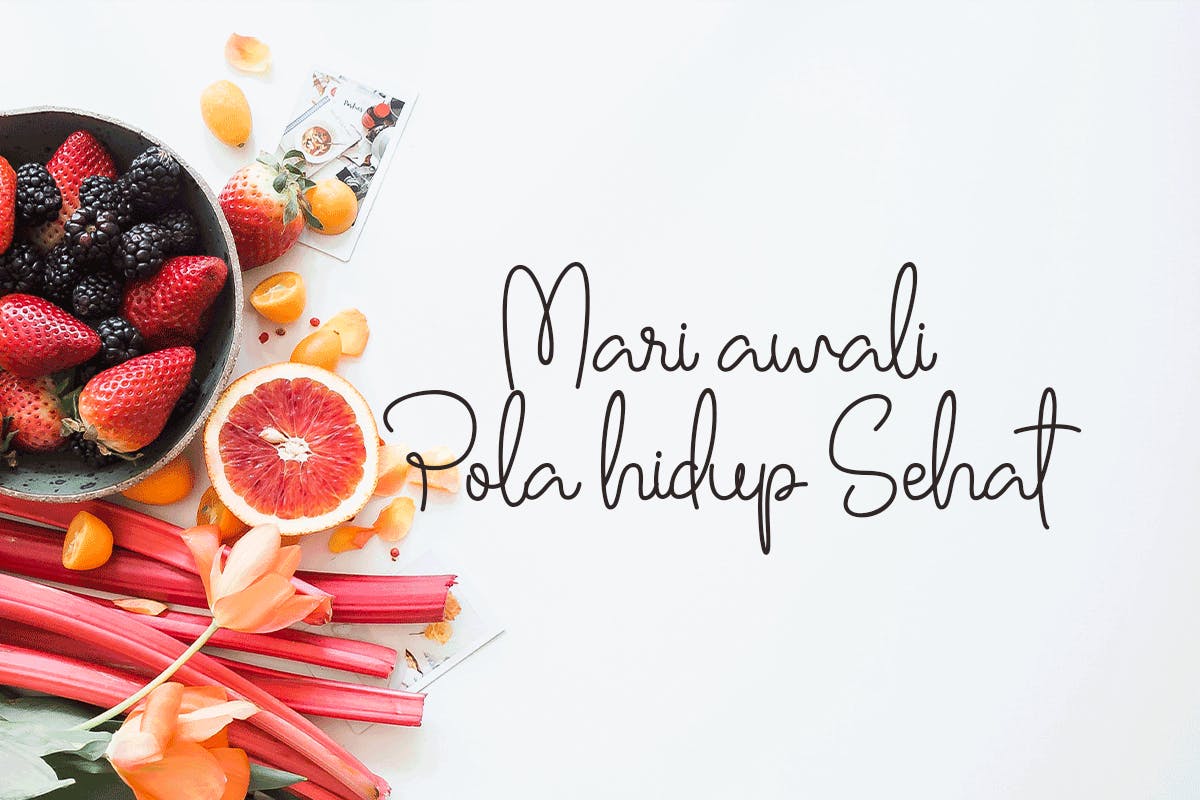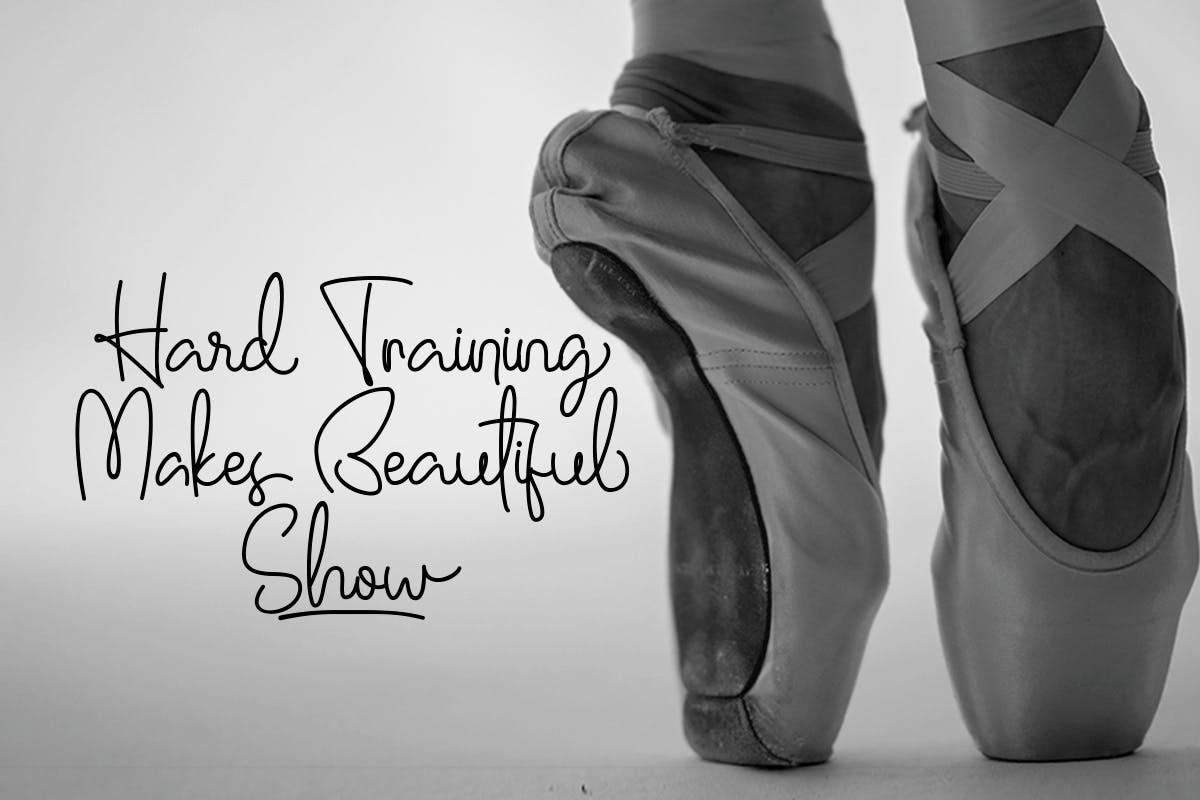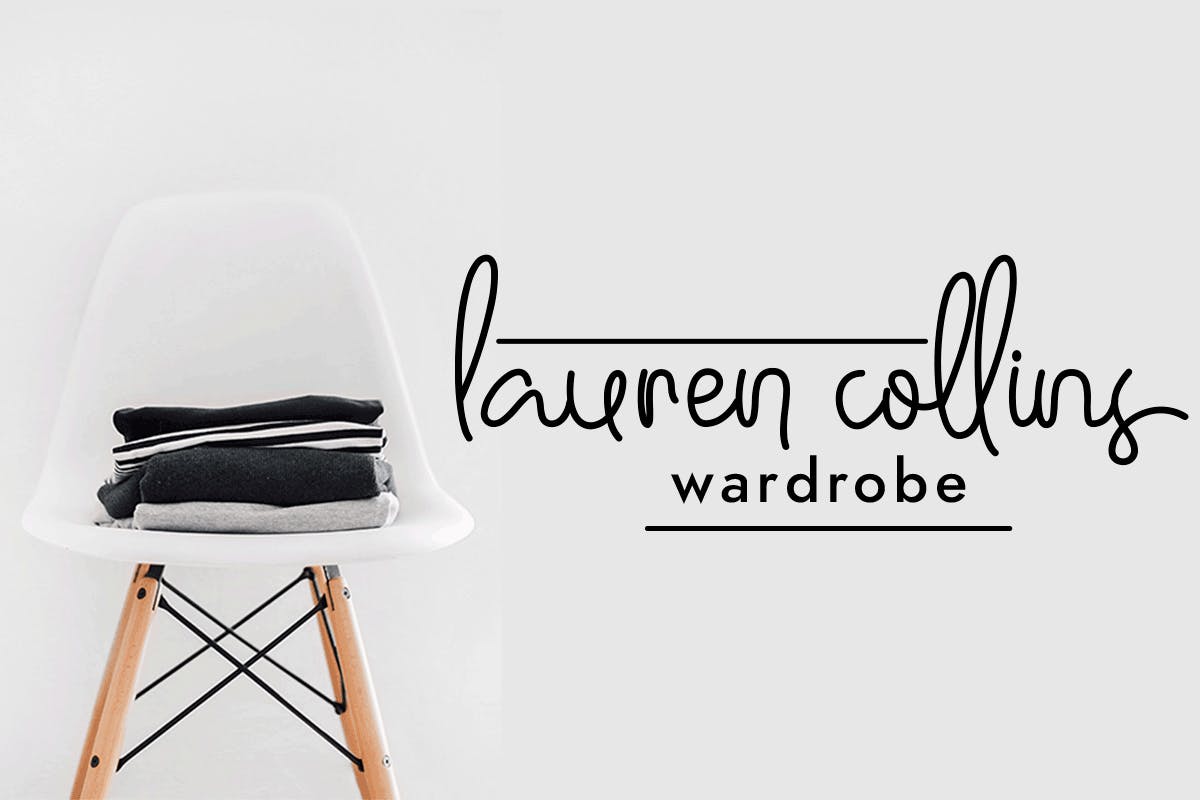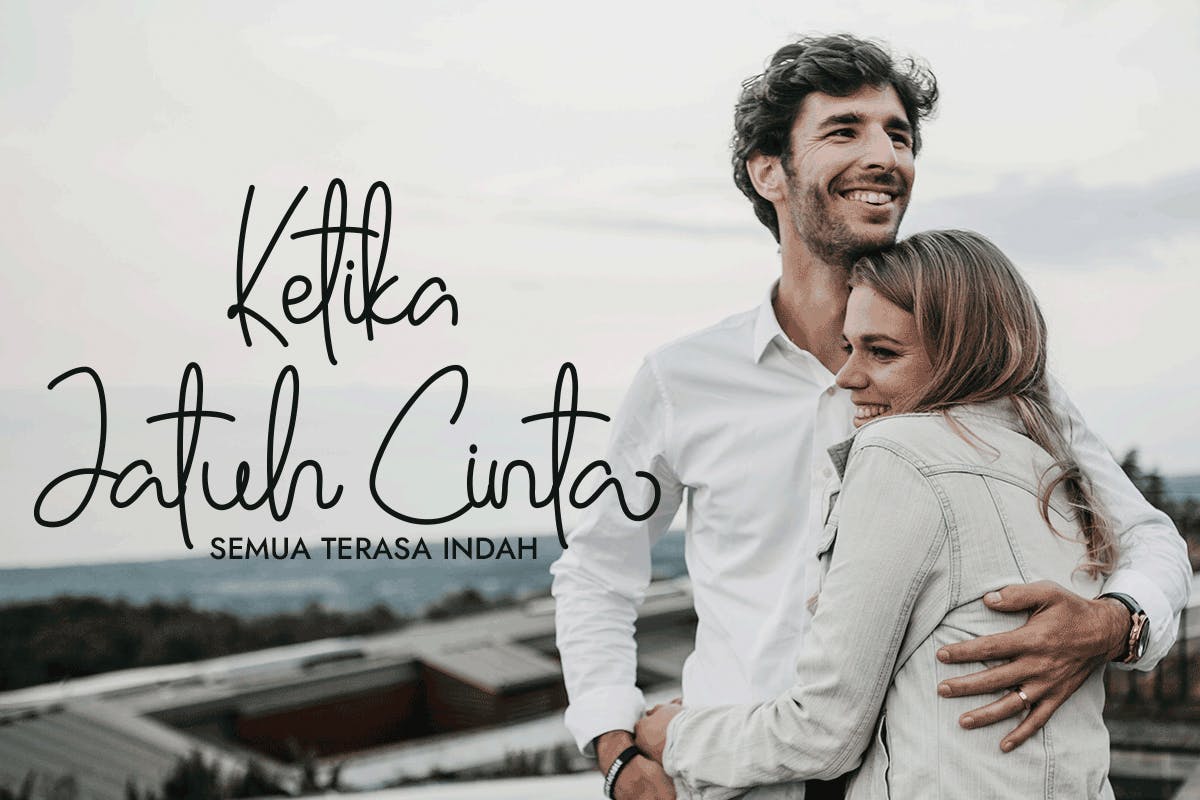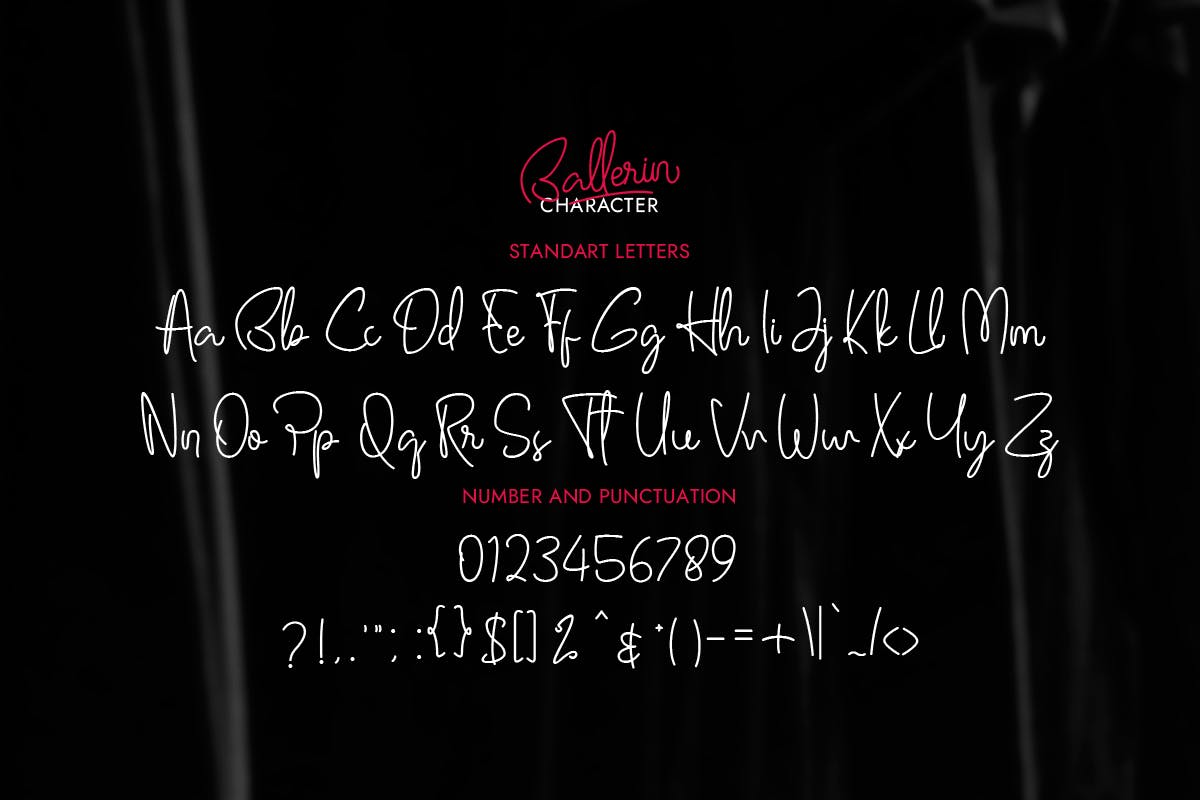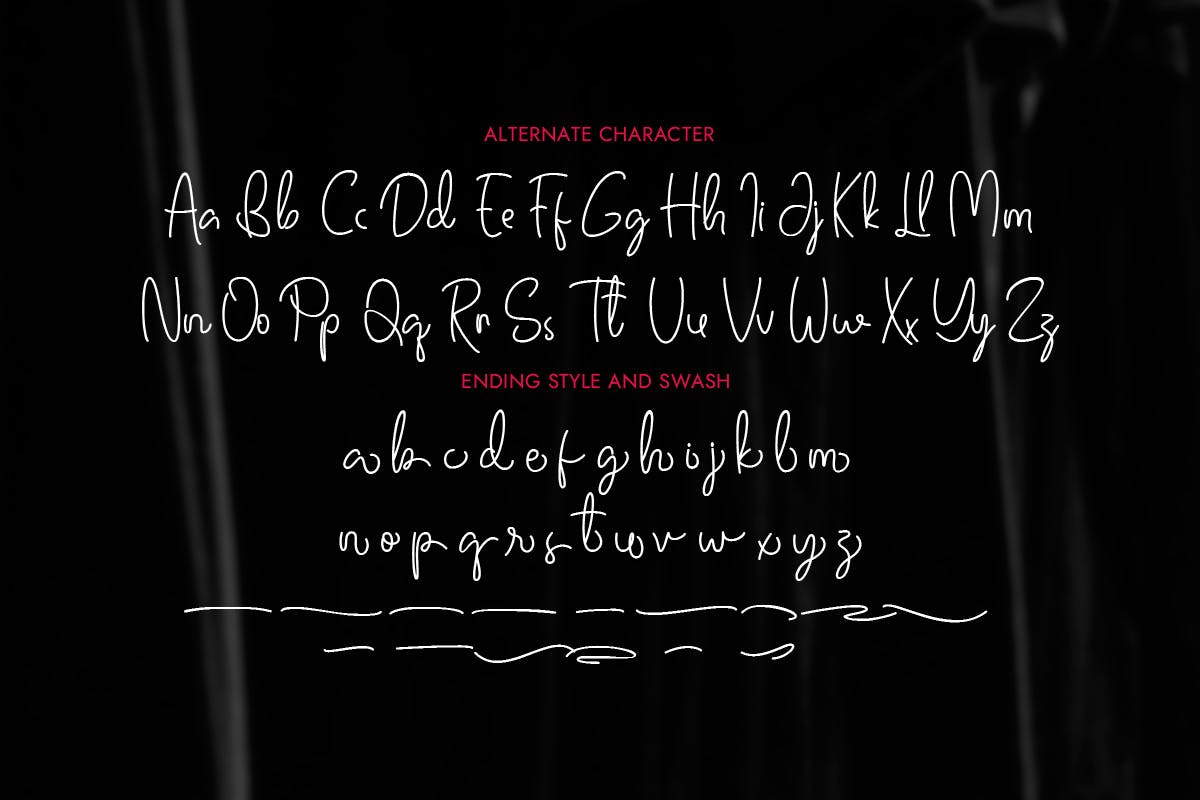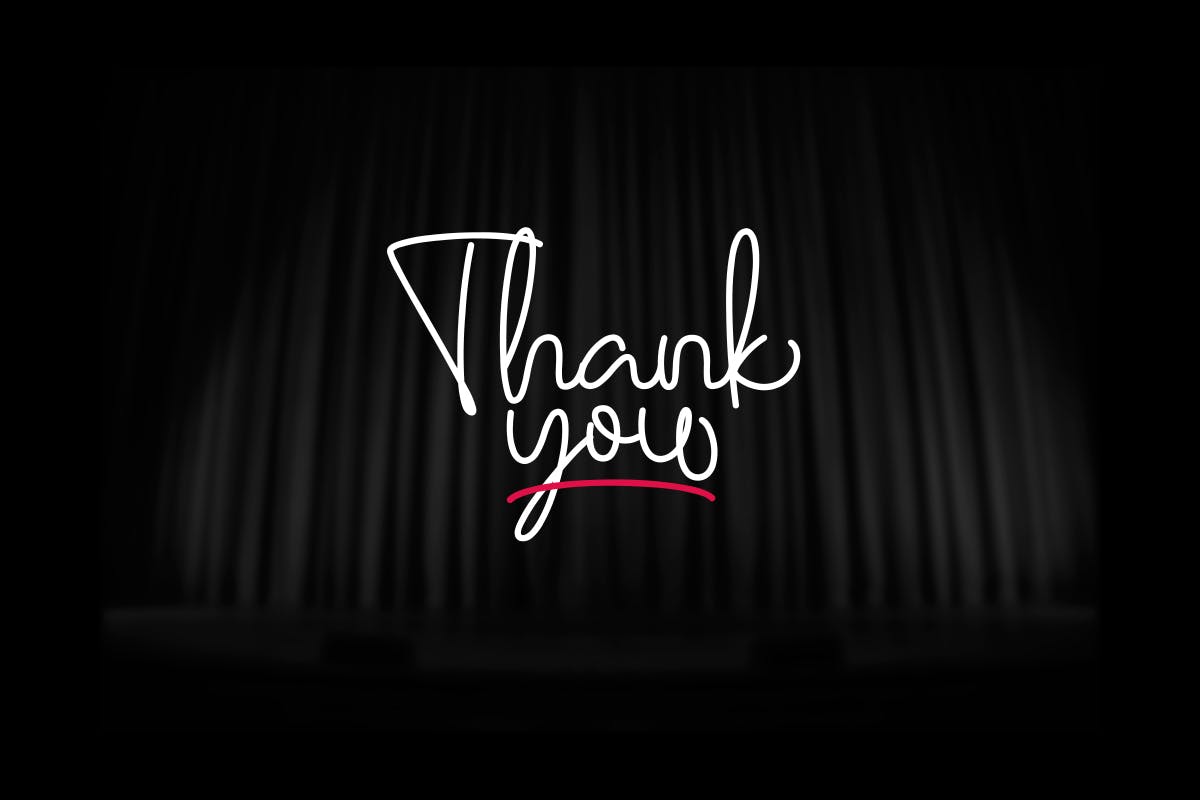
Free Ballerin Script Font
Introducing a new script monoline font which is Free Ballerin Script Font. It is a very good looking font that matches your projects to make it look in a professional way. This free font is also suitable for business cards, gift cards, and more. Coming with an OTF format file that will help you to install and use it on your devices as well. However, this awesome font is available for personal use, but get more features by purchasing the premium version.